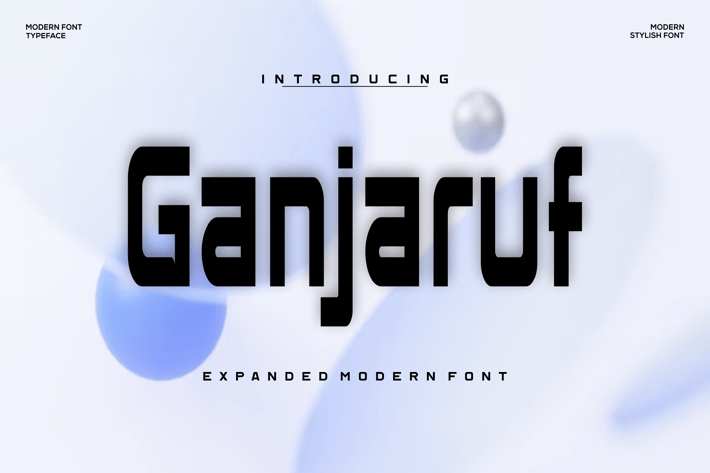
Ganjaruf Font
Introducing our new product Ganjaruf Font - Modern Font
Ganjaruf Font - Modern Font is a bold and authentic display font. The font is suitable for any branding project like logo, esport, and many more. outstanding in a wide range of contexts.